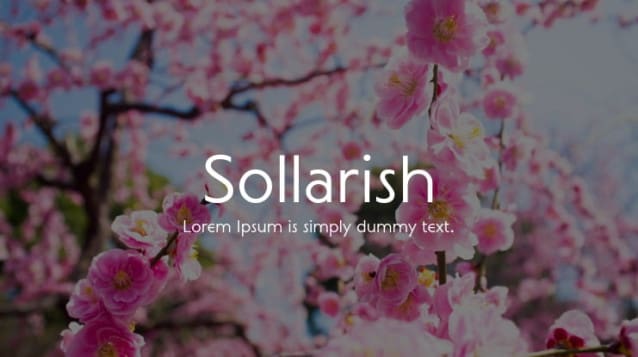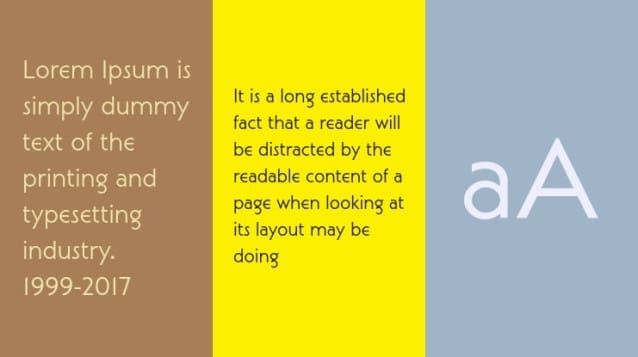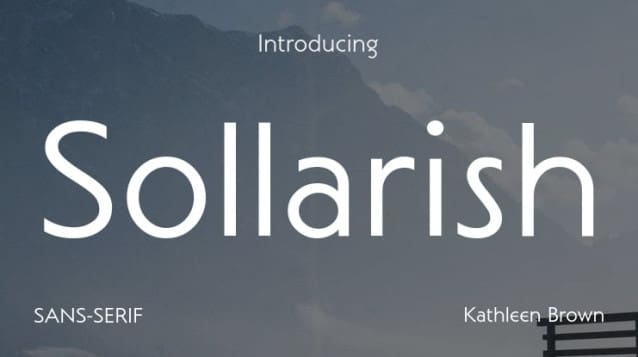
Sollarish Font is a sans serif stunning when combined or separately. This sans serif font style is legible and stunningly designed.
Sollarish Font
| Designer Name: | Kathleen Brown |
| Classification: | Sans Serif Fonts, Style / Aesthetic Fonts |